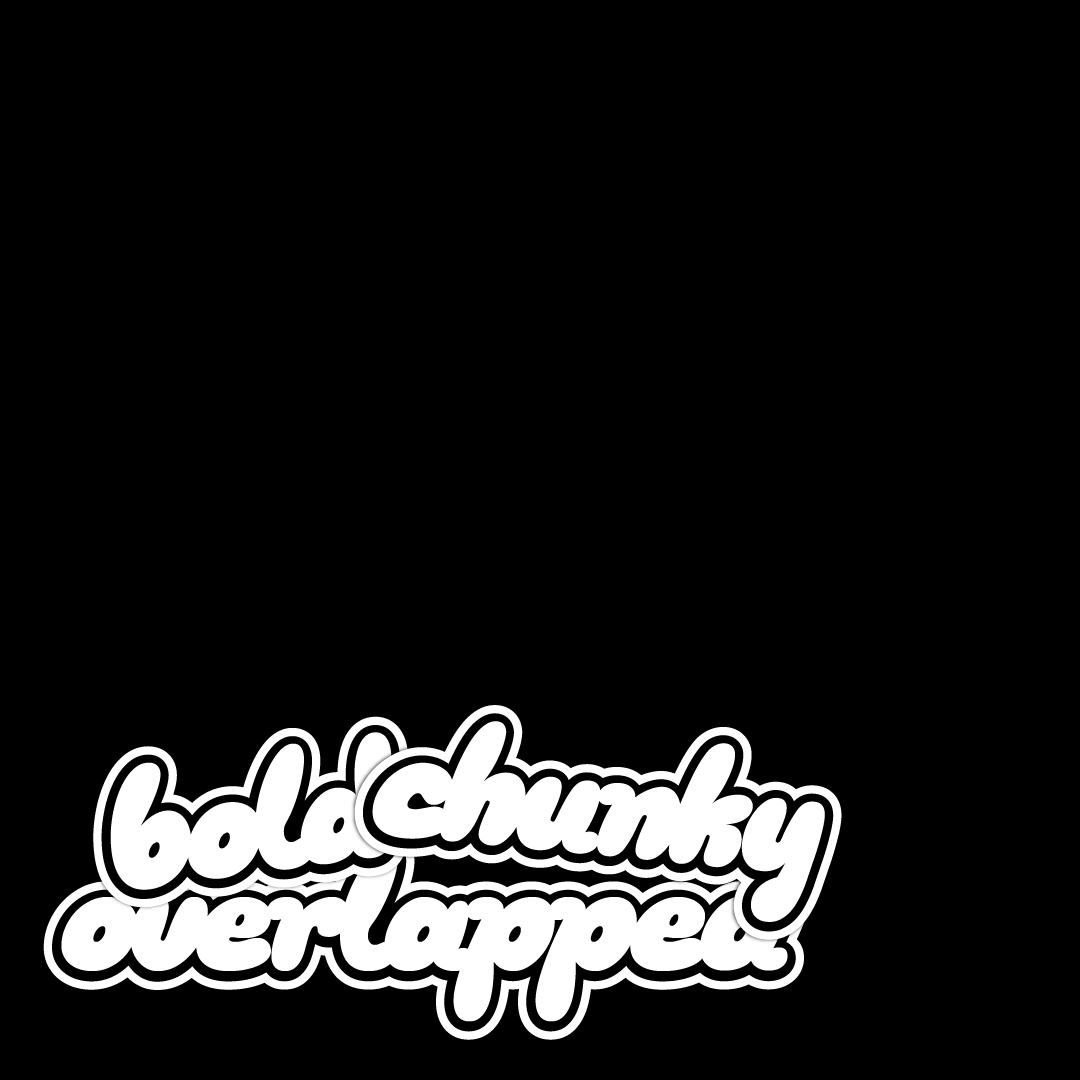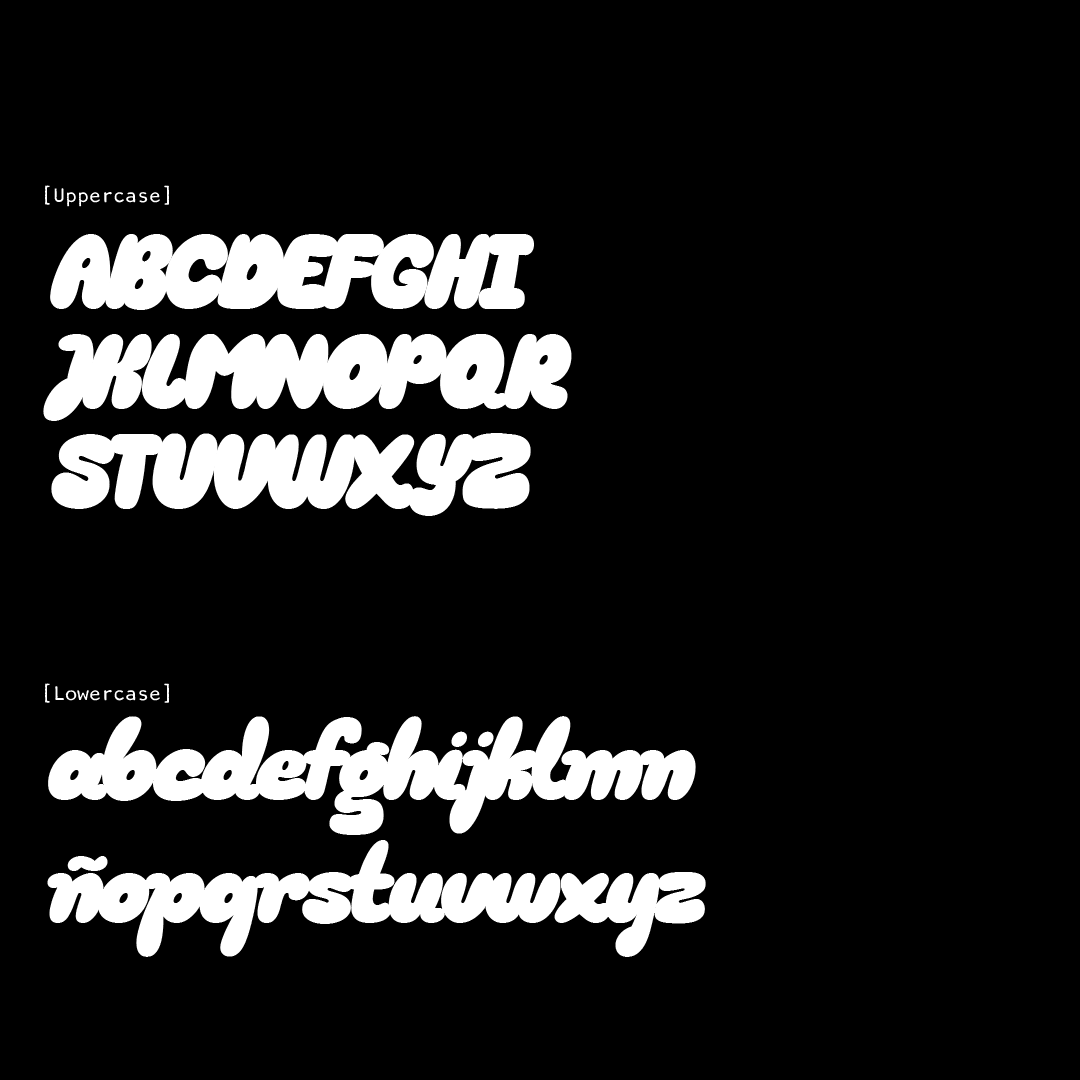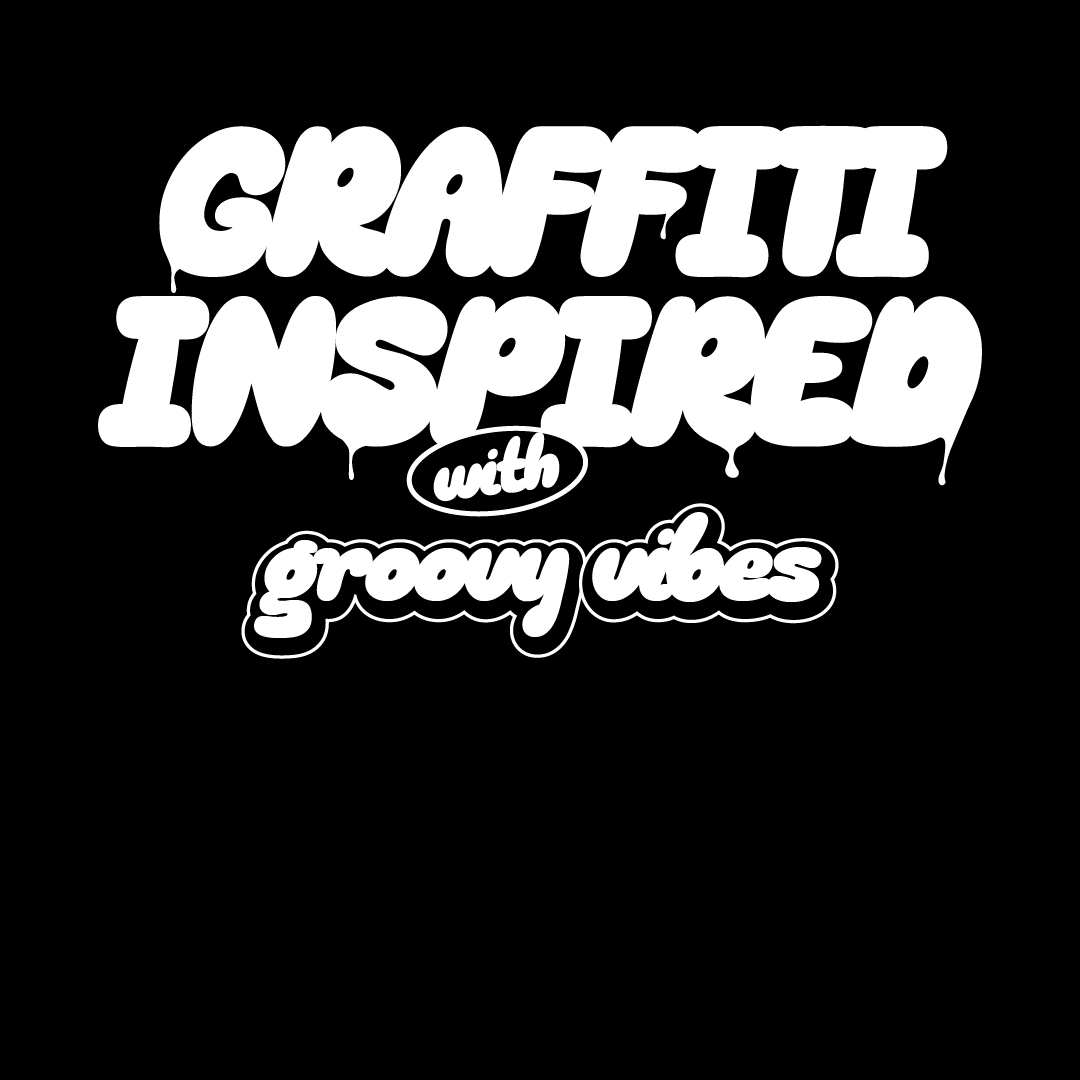
LoopBoop is an overlapped italic typeface inspired by the many shapes found in graffiti along with some groovy/retro vibes. It is meant to be used as a form of digital intervention.